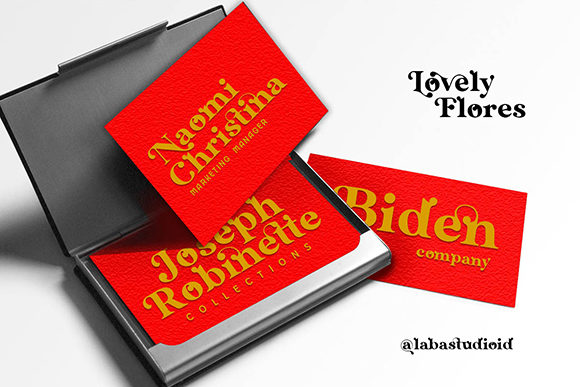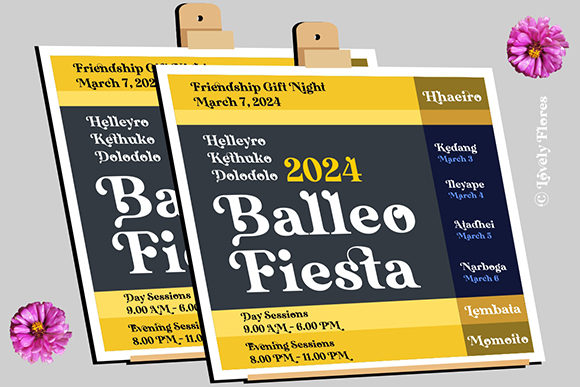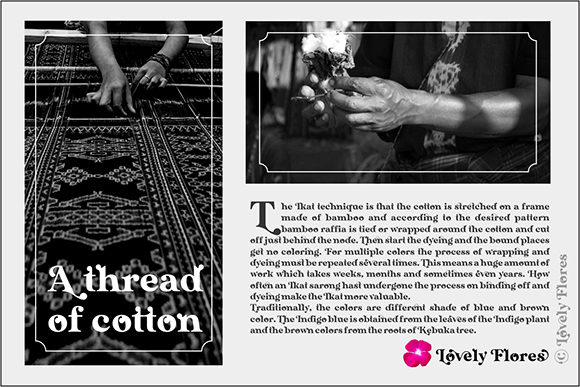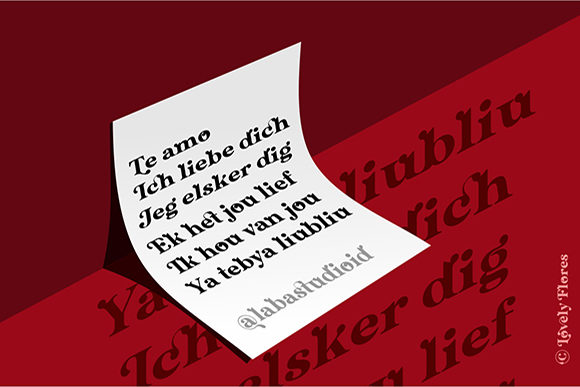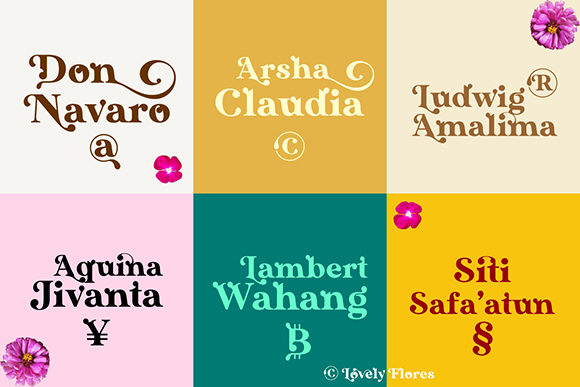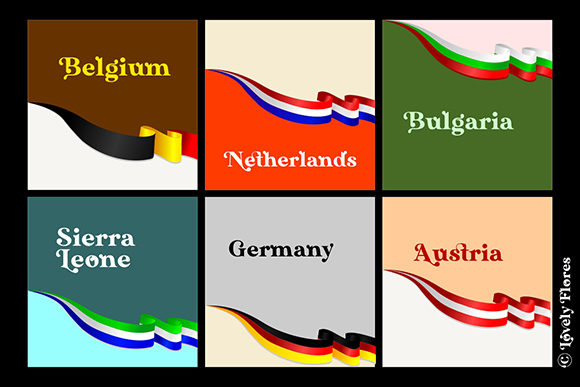
Introduction to Lovely Flores Font
Lovely Flores is an elegant serif font, that features a very delicate and classy look.
Balanced and varied, this font was designed to enhance the beauty of your projects .
Key Features of Lovely Flores Font
Why Choose Lovely Flores Font?
Lovely Flores Font offers exceptional quality and versatility, making it a valuable addition to your design toolkit. Whether you’re creating for personal projects or commercial use, Lovely Flores Font delivers professional results.